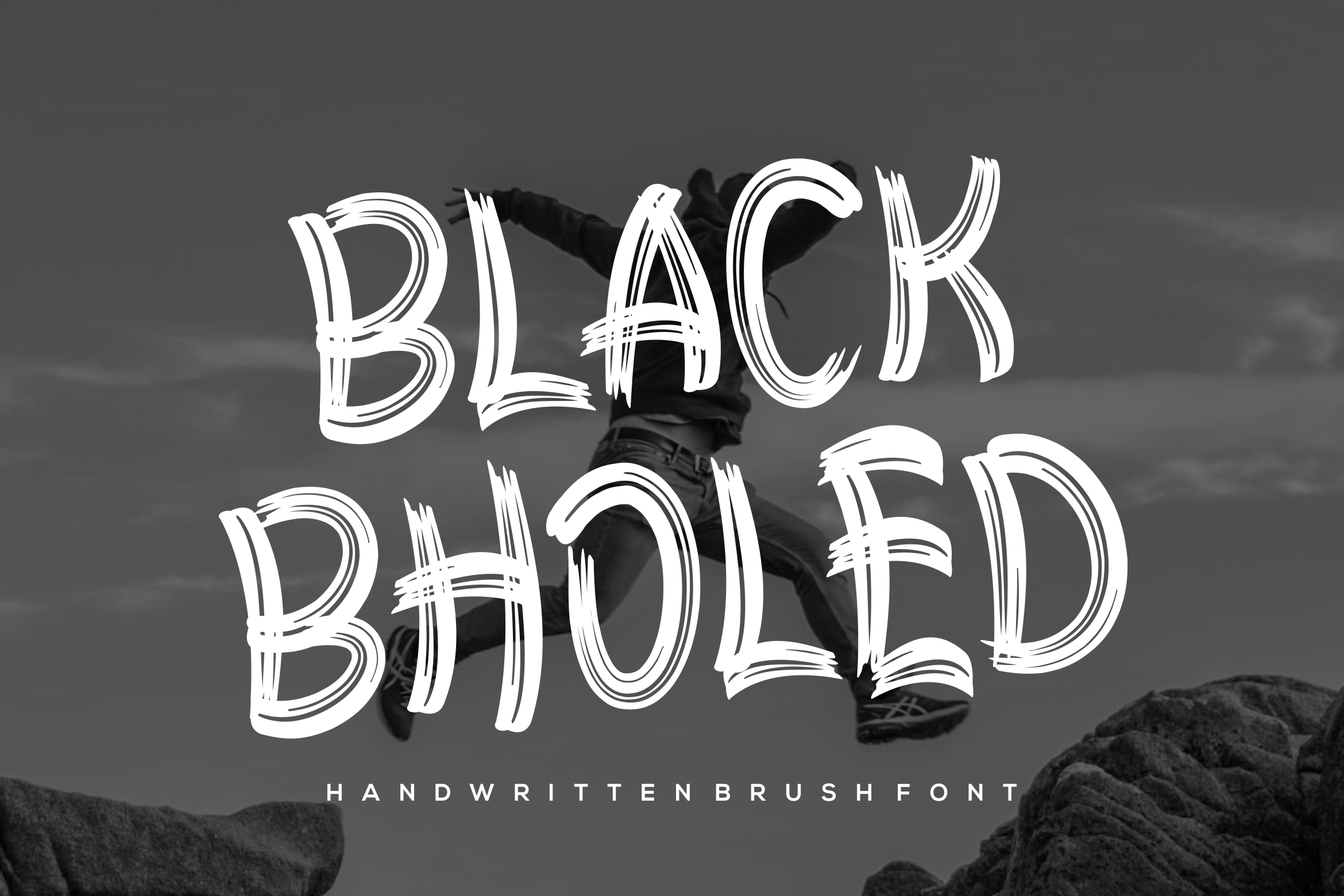
Black Bholed Font
Introducing our new product Black Bholed Font - Modern Font
Black Bholed Font - Modern Font is a bold and authentic display font. The font is suitable for any branding project like logo, esport, and many more. outstanding in a wide range of contexts.